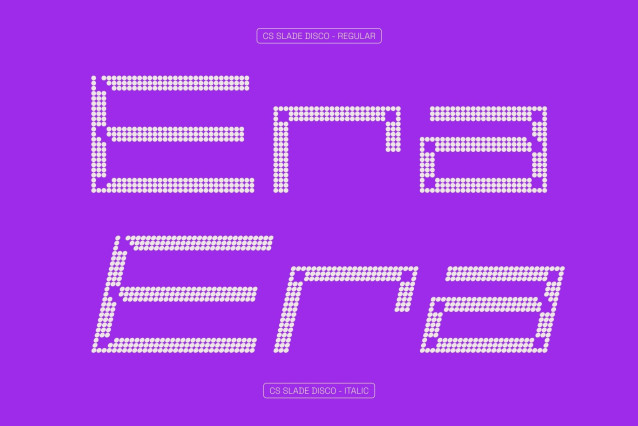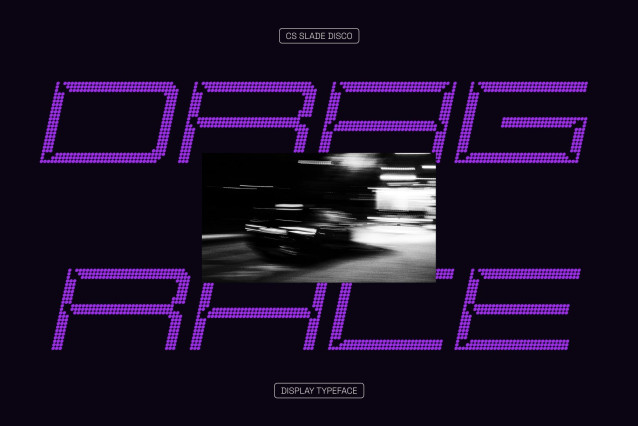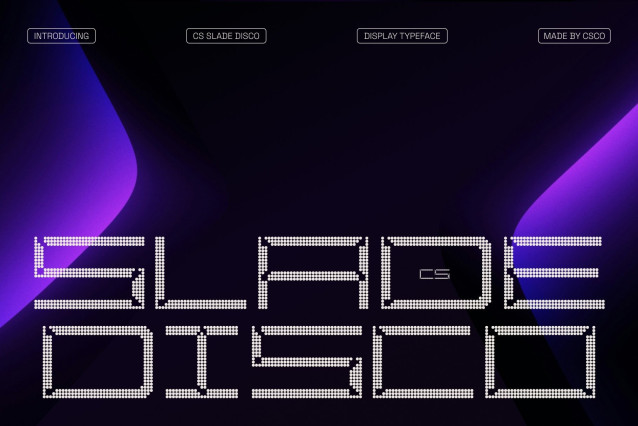
CS Slade Disco Font
CS Slade Disco – Wide Inktrap Sans Serif with Modern Glow
Contemporary Sans Serif with Bold Presence
This is a modern sans-serif font featuring distinctive inktrap details and wide proportions, now enhanced with a lively disco dot texture. This combination creates typography that feels sleek, confident, and visually engaging while adding a playful, illuminated character.
Intriguing Inktrap Details for Unique Character
The inktrap cuts emphasize corners and inner spaces, giving each letter a refined and technical personality. When paired with the disco texture, these details create depth and rhythm, turning clean geometry into expressive display typography.
Wide Structure for Clarity and Impact
The generous width of the letterforms provides strong readability and bold presence. This spacious construction makes the font ideal for headlines, banners, logos, and large-scale layouts where clarity and impact are essential.